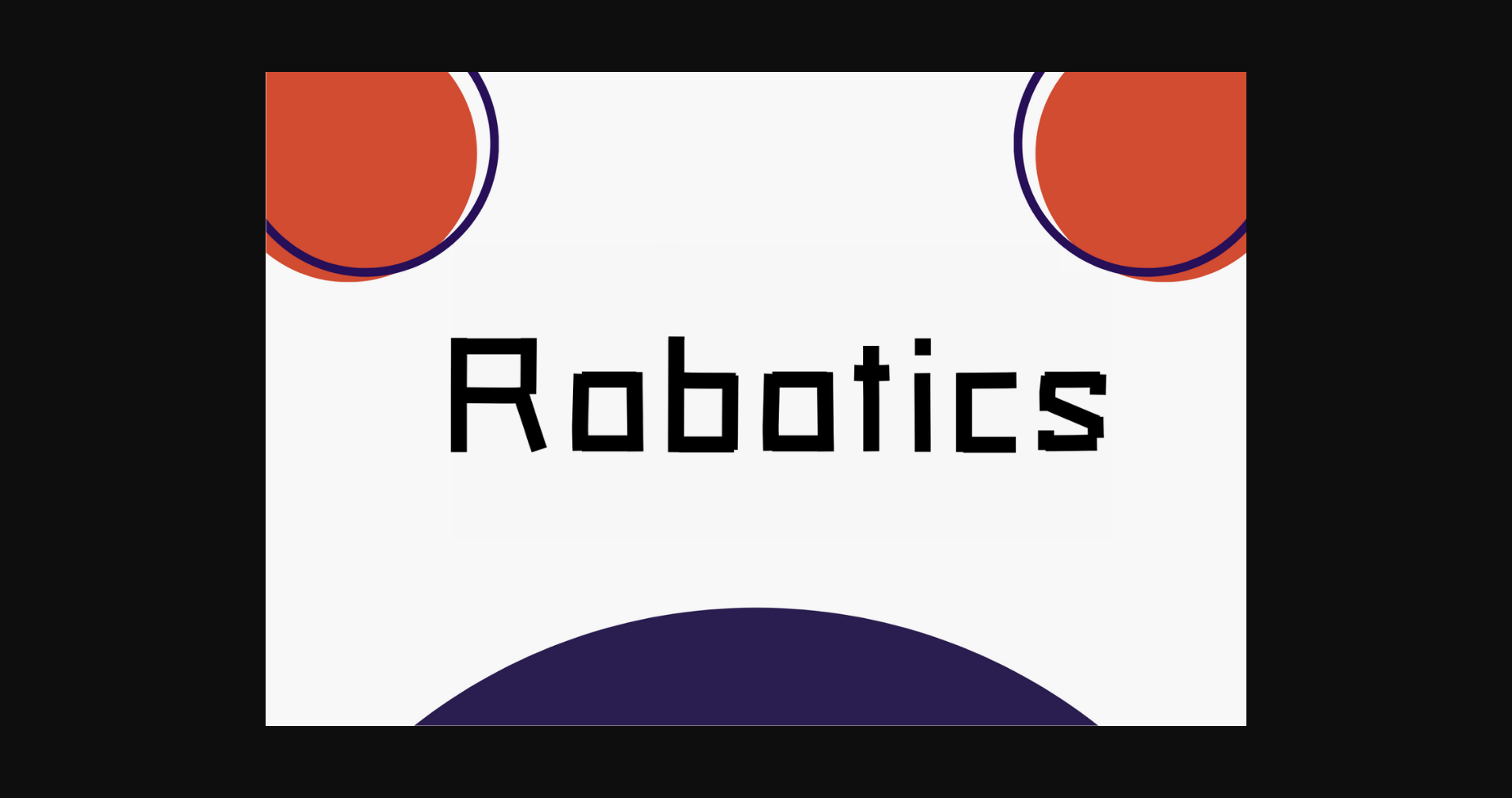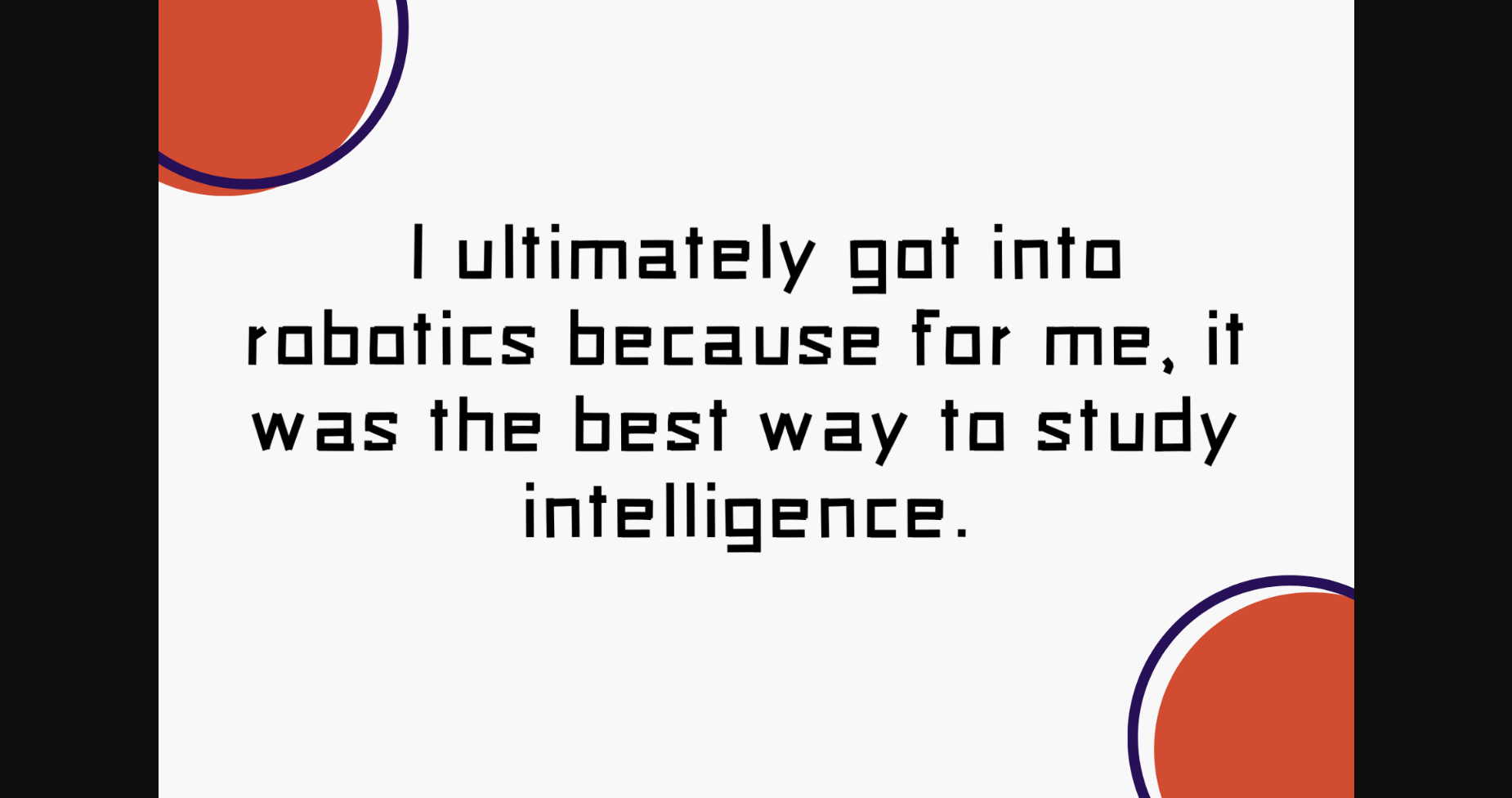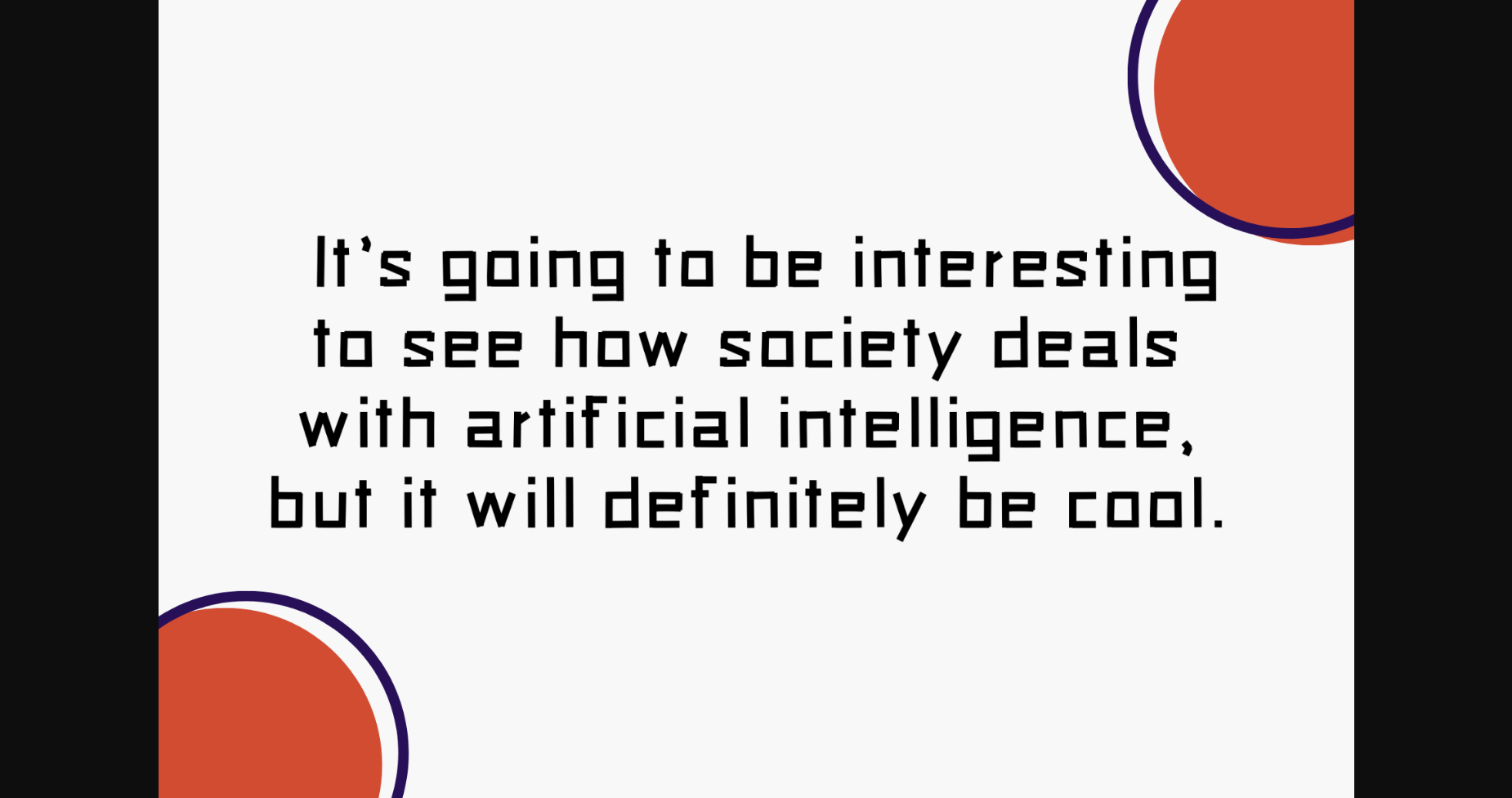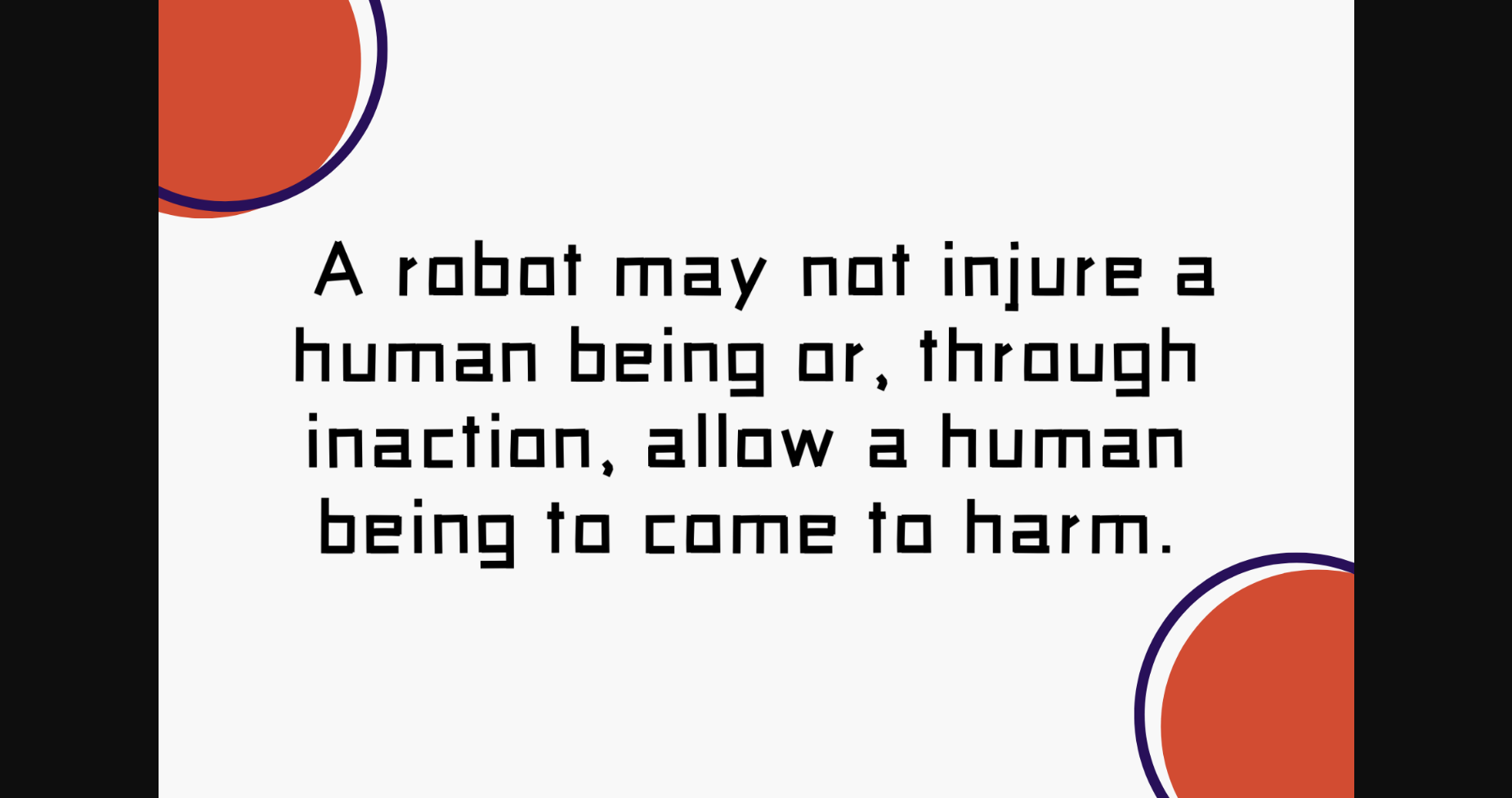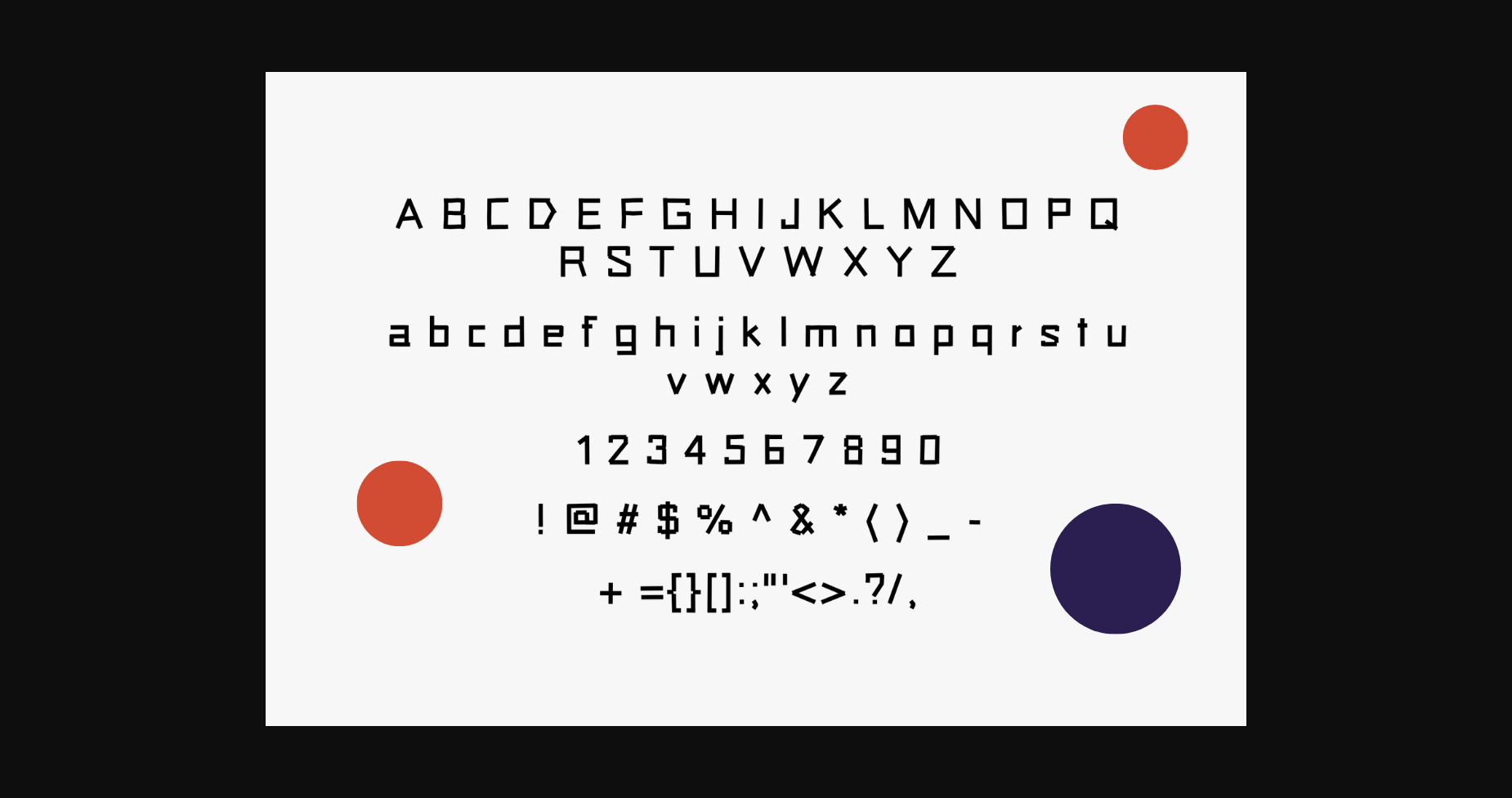
Robotics is a sans serif font, perfect for creative content related to IT, technology, robotics, and more. Add it to your projects and watch them come alive!